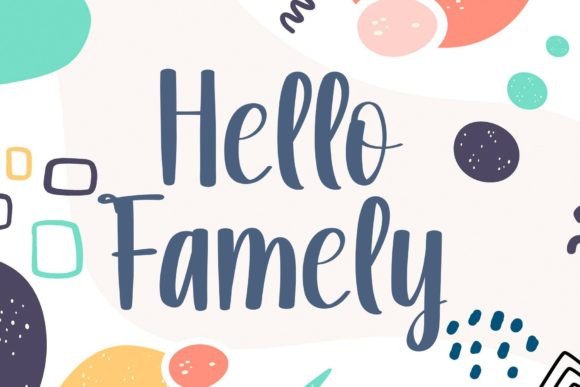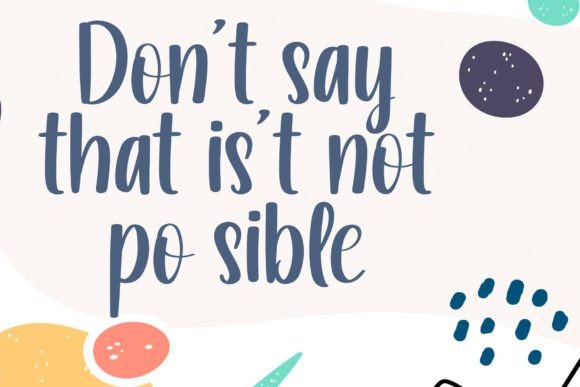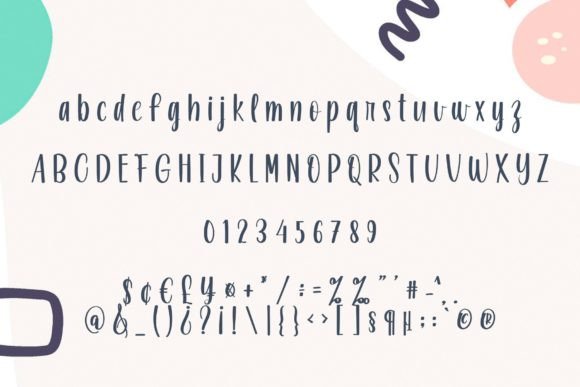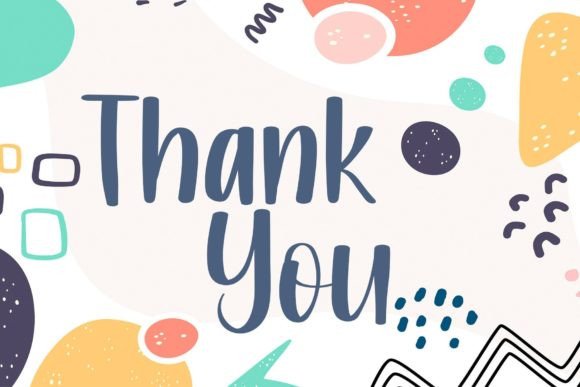
Memories in September Font
Memories In September is more than just a font; it’s a joyful expression captured in handwritten strokes, designed to infuse your designs with a happy and fun mood. Perfectly suited for a myriad of applications such as branding, packaging, logotypes, headlines, wedding invitations, and more, this font is a delightful choice for projects that aim to radiate positivity.
Imagine the impact of Memories In September on your branding, where each letter becomes a visual representation of happiness. Packaging adorned with this font becomes a celebration, and logotypes carry the cheerful energy that sets your brand apart. The font effortlessly transitions into headlines, becoming a focal point that draws the eye with its playful charm.
For the most special occasions, Memories In September becomes a fitting choice for wedding invitations, infusing the event with a touch of joy and creating a keepsake that echoes happiness. Its versatility allows it to adapt seamlessly to various design contexts, turning ordinary projects into delightful expressions of creativity.
This font is not just a typographic tool; it’s a design element that conveys a positive and vibrant atmosphere. Memories In September becomes the bridge between your ideas and the visual language of happiness. Its handwritten charm adds a personal touch, making each project feel uniquely yours.
In essence, Memories In September is a font that encapsulates the spirit of joy and celebration. Let it be the catalyst for transforming your designs into a happy and fun experience. Choose Memories In September to infuse your branding, packaging, logotypes, headlines, and wedding invitations with the delightful energy that only a truly happy handwritten font can bring.